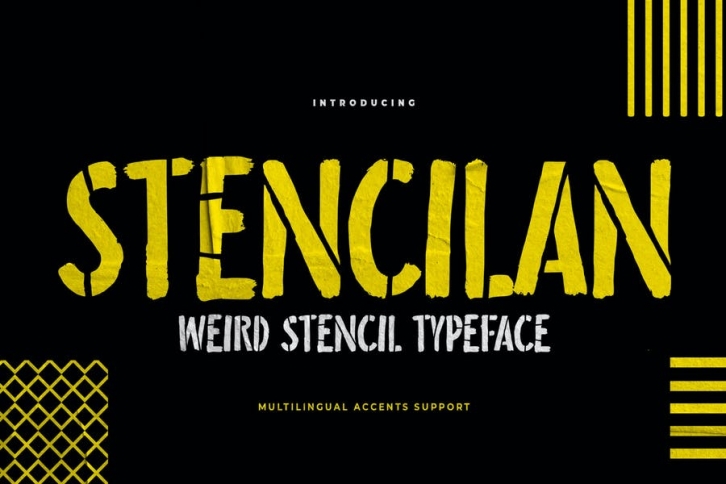
Hello Everyone, introduce our new product Font Stencilan is a Weird Stencil Typeface. This is a Natural Style with a stencil style. Stencilan is great for your next creative project such as logos, printed quotes, invitations, cards, product packaging, headers, Logotype, Letterhead, Poster, or Design this font is great for your creative projects such as watermark on photography and is perfect for logos & branding, invitation, advertisements, product designs, stationery, wedding designs, label, product packaging, special events or anything that need stencil taste. That has charming, authentic, and relaxed characteristics more natural look to your text.